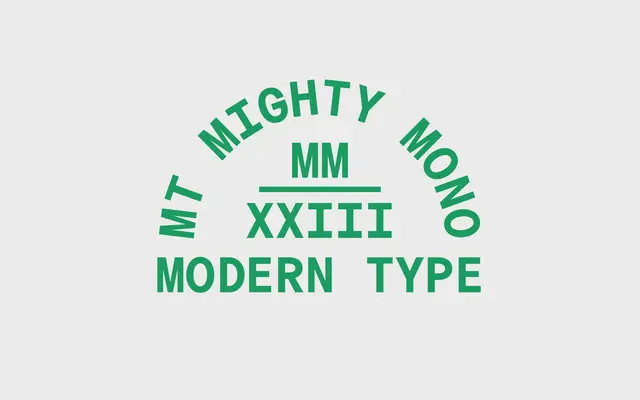
MT Mighty Mono
Modern Type · Thy Hà · 2023
A low-contrast geometric monospaced typeface by Thy Hà, rooted in Vietnamese schoolbook letterforms and developed through postgraduate research into Vietnamese diacritics.
Drawn by Thy Hà during her master's research project on Vietnamese diacritic design, the typeface takes its letterforms from those she encountered in primary school in Vietnam, including a tailed 'i' and single-storey 'a' and 'g'. Five weights run from Light to Bold without italics, and the glyph set covers extensive Latin Extended characters with full Vietnamese support. Its geometric rigour and monospaced rhythm make it suited to editorial, coding and display contexts where a non-generic mono is required.
A monospaced typeface with geometric construction and low contrast, explicitly described as geometric and monospaced by the foundry, with letterforms drawn from the designer's Vietnamese schooling background.